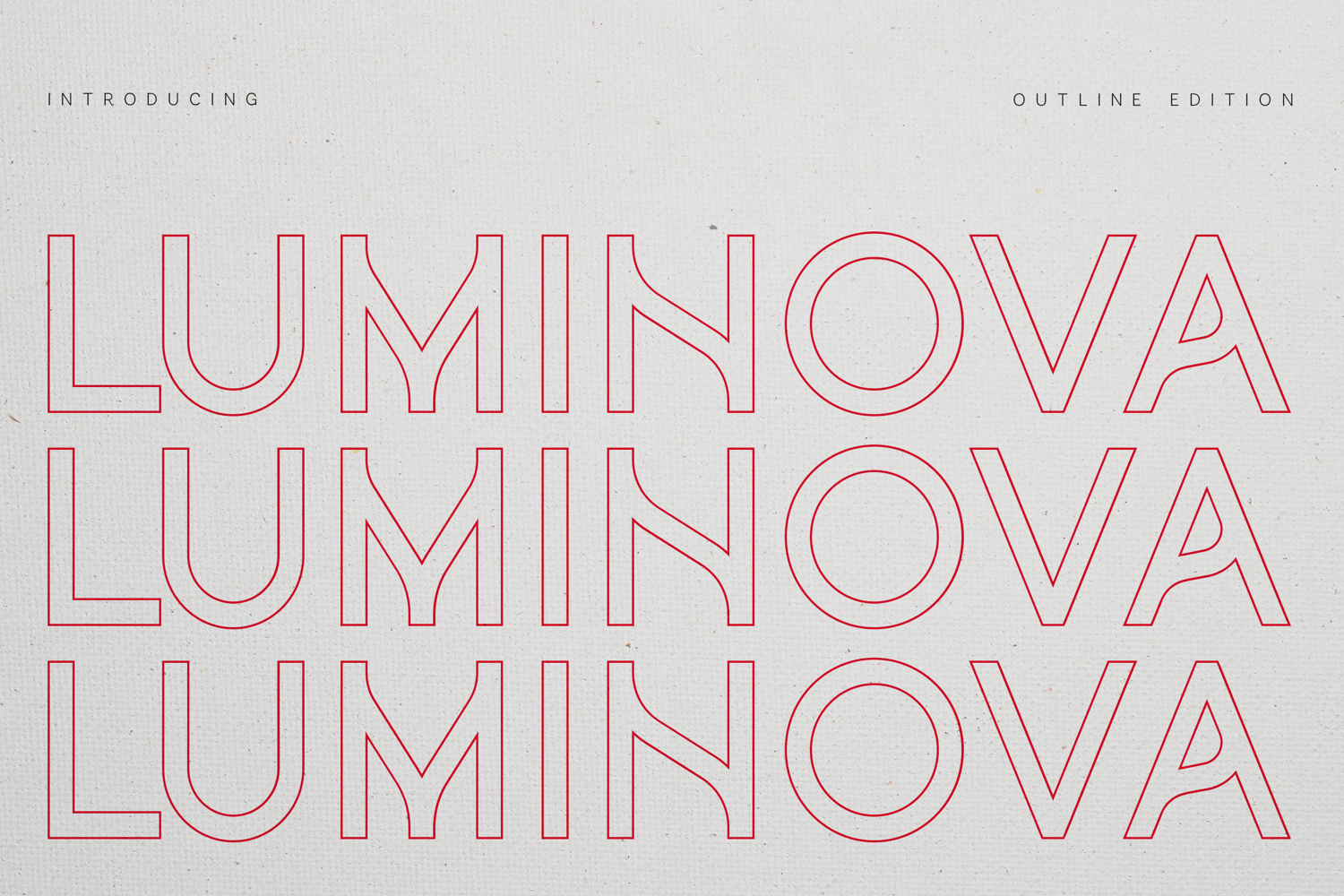
Modern Heritage Minimalist Sans Serif Font
Luminova is a modern geometric sans serif built for clarity, versatility, and contemporary branding.
Designed with balanced proportions and smooth rounded forms, it delivers a clean and confident visual voice across digital and print projects.
The included Outline Edition expands creative flexibility — perfect for bold headlines, layered typography, packaging design, and modern logo systems.
From startup identities to social campaigns, Luminova adapts seamlessly to today’s design needs.
• Numerals
• Punctuation
• Outline Edition
• Branding-ready spacing